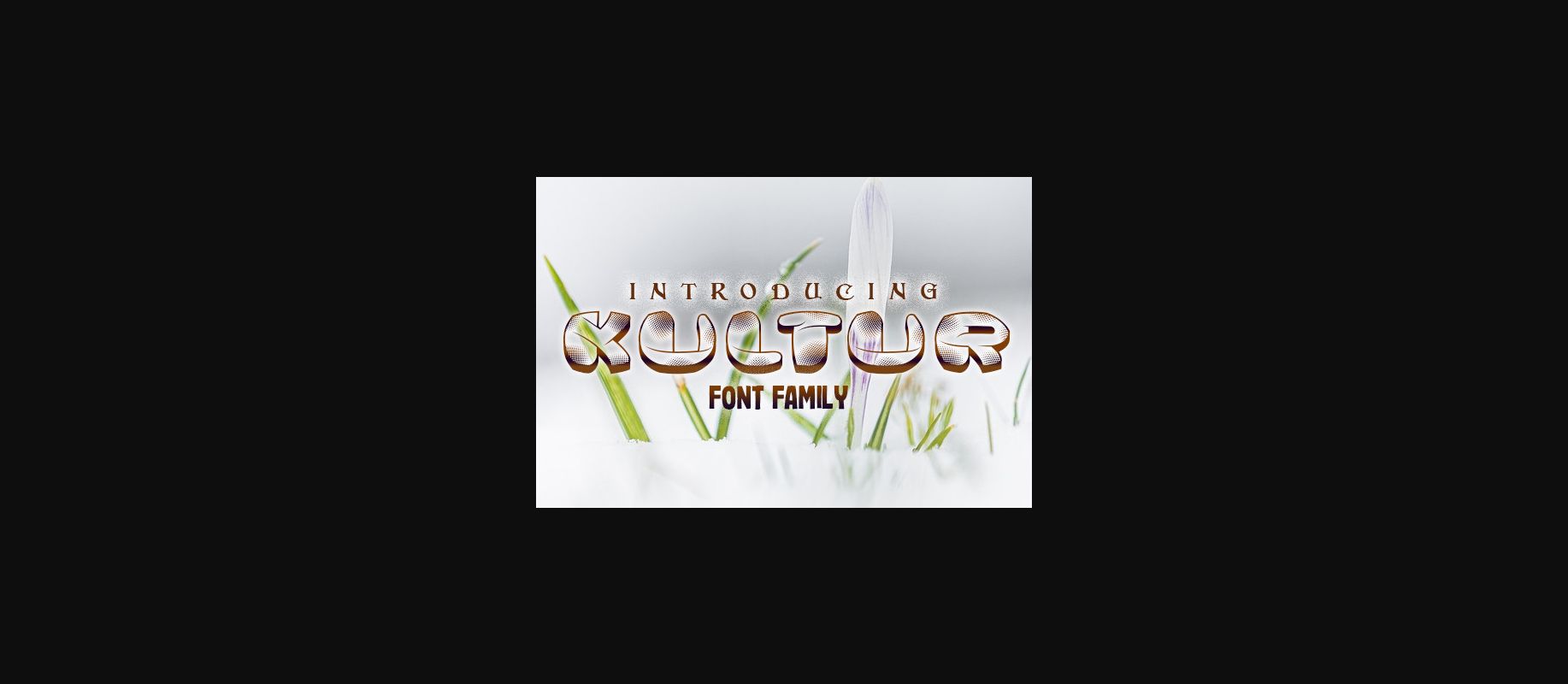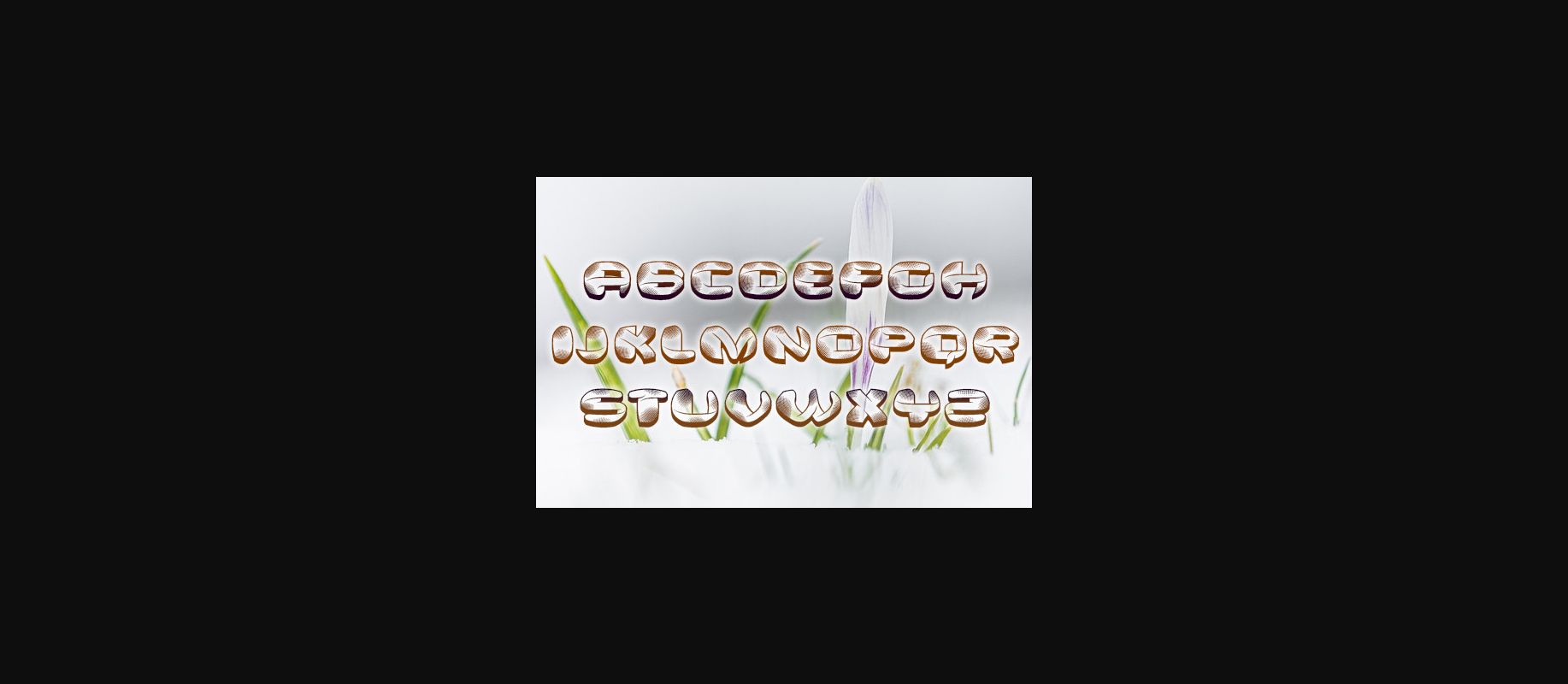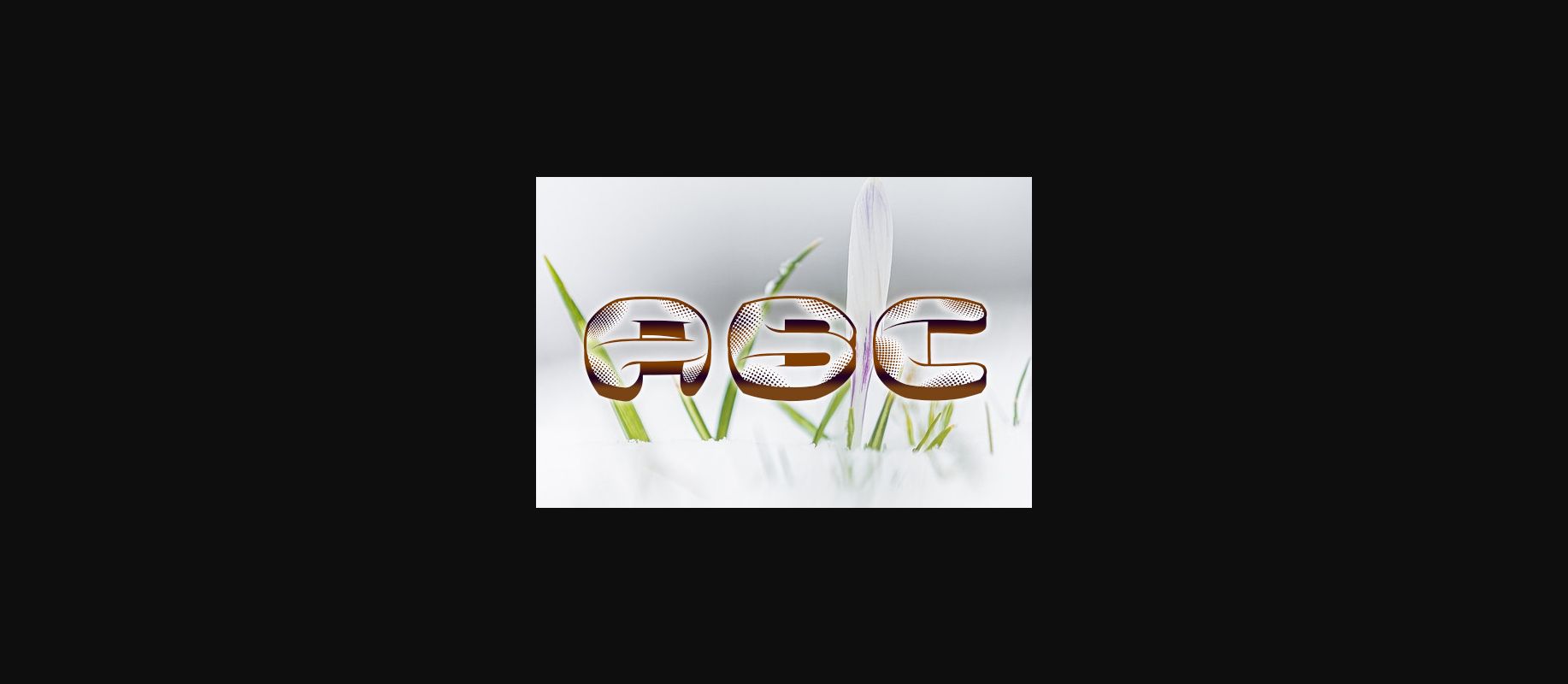
About Kultur Font
Kultur is a stunning 3D decorative font family that will truly inspire your designs. Use this font for banners, posters, and postcards.